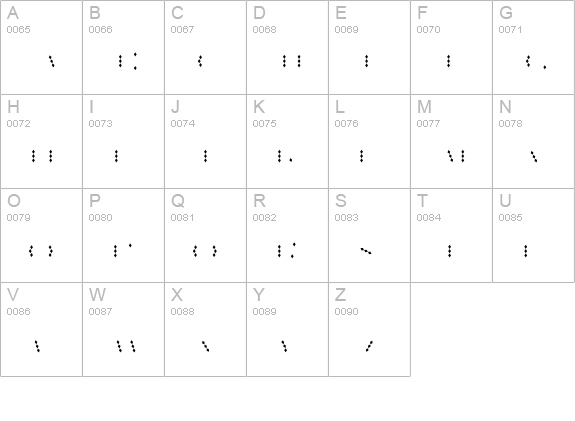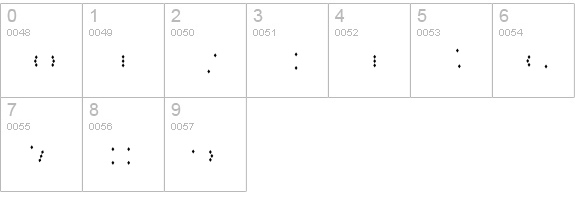
Maverick's Fill Diamonds Font Details
Introducing Maverick's Fill Diamonds font, a captivating and stylish typeface designed to make a statement. This unique font features intricate diamond-shaped fill patterns that add a touch of elegance and sophistication to any design project. Perfect for adding a touch of luxury to invitations, branding, logos, and more, Maverick's Fill Diamonds font is sure to impress. What's even better is that this stunning font is available for free download at FontsMarket.com. Don't miss out on the opportunity to enhance your designs with this eye-catching typeface. Download Maverick's Fill Diamonds font today and elevate your projects with its exquisite charm and beauty.